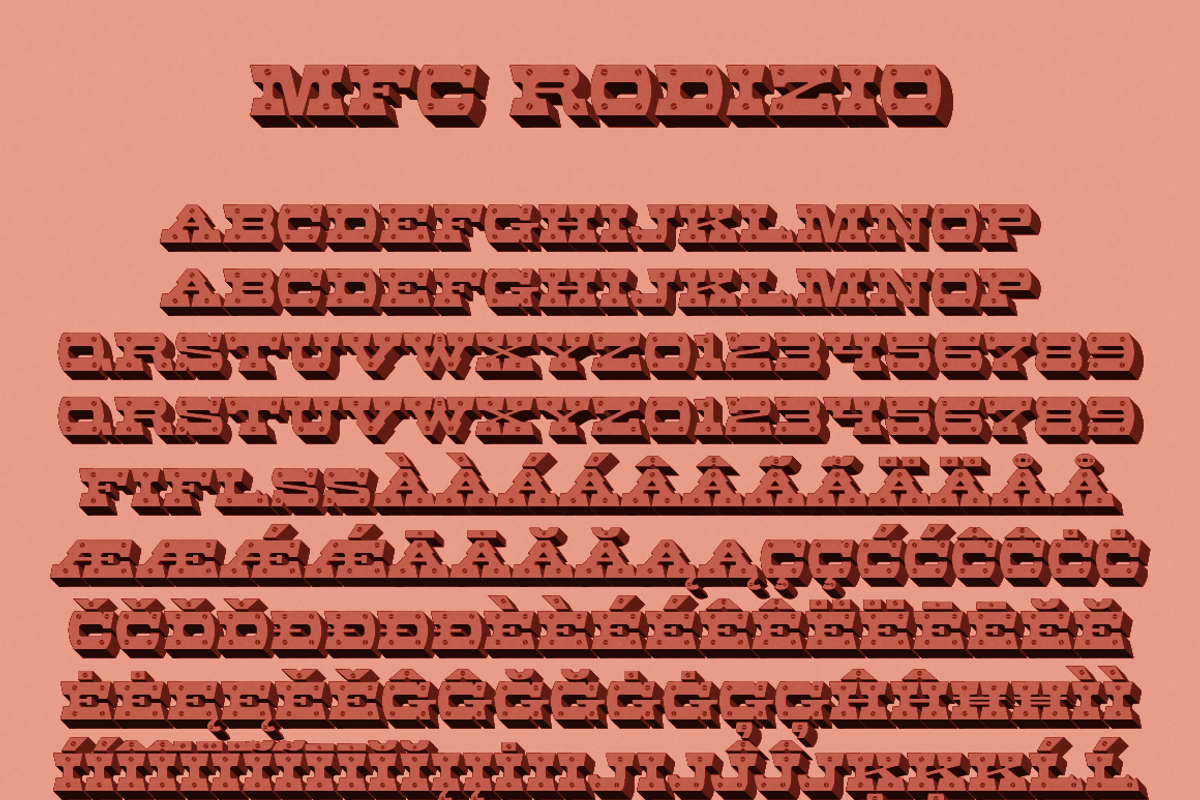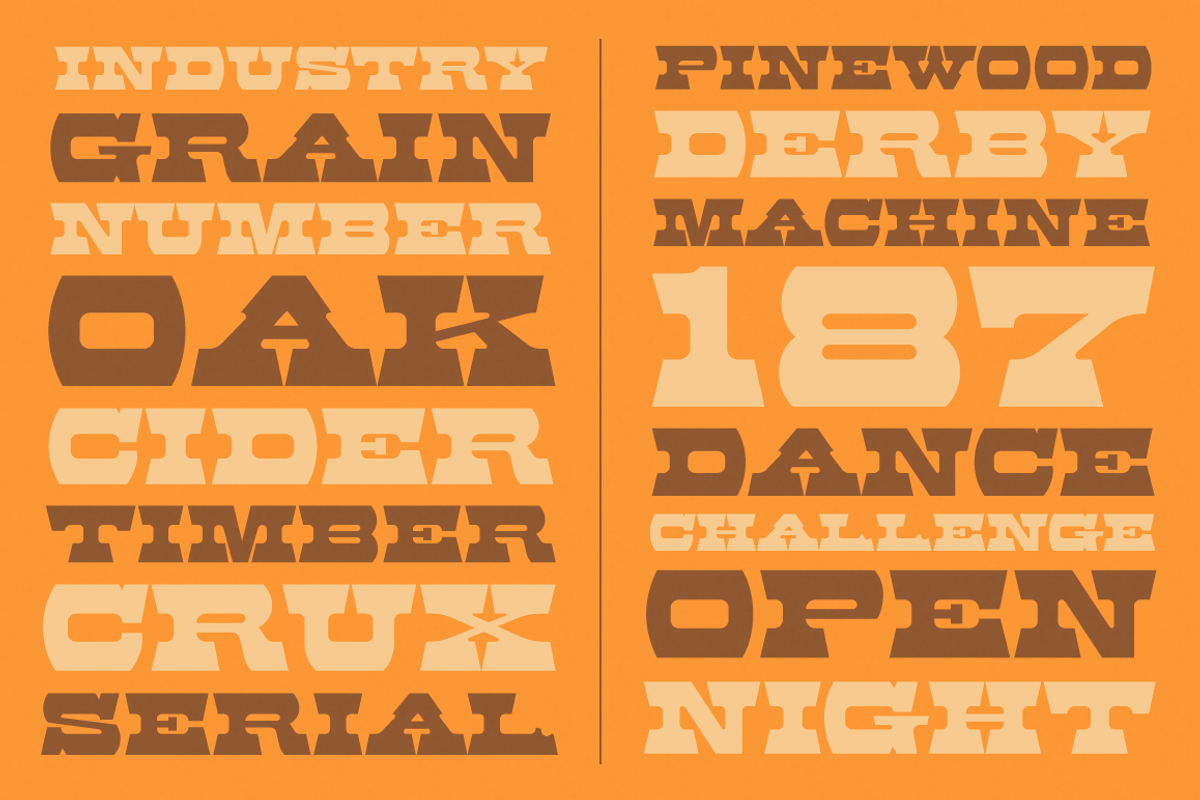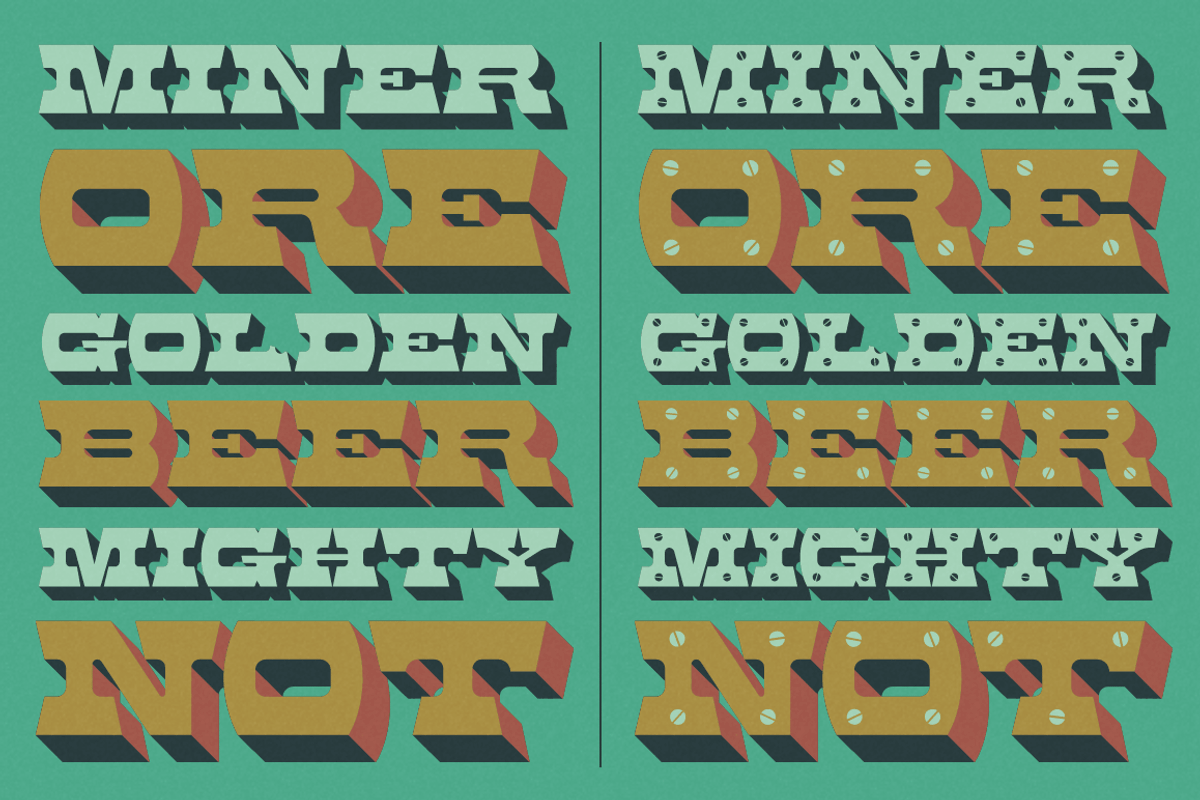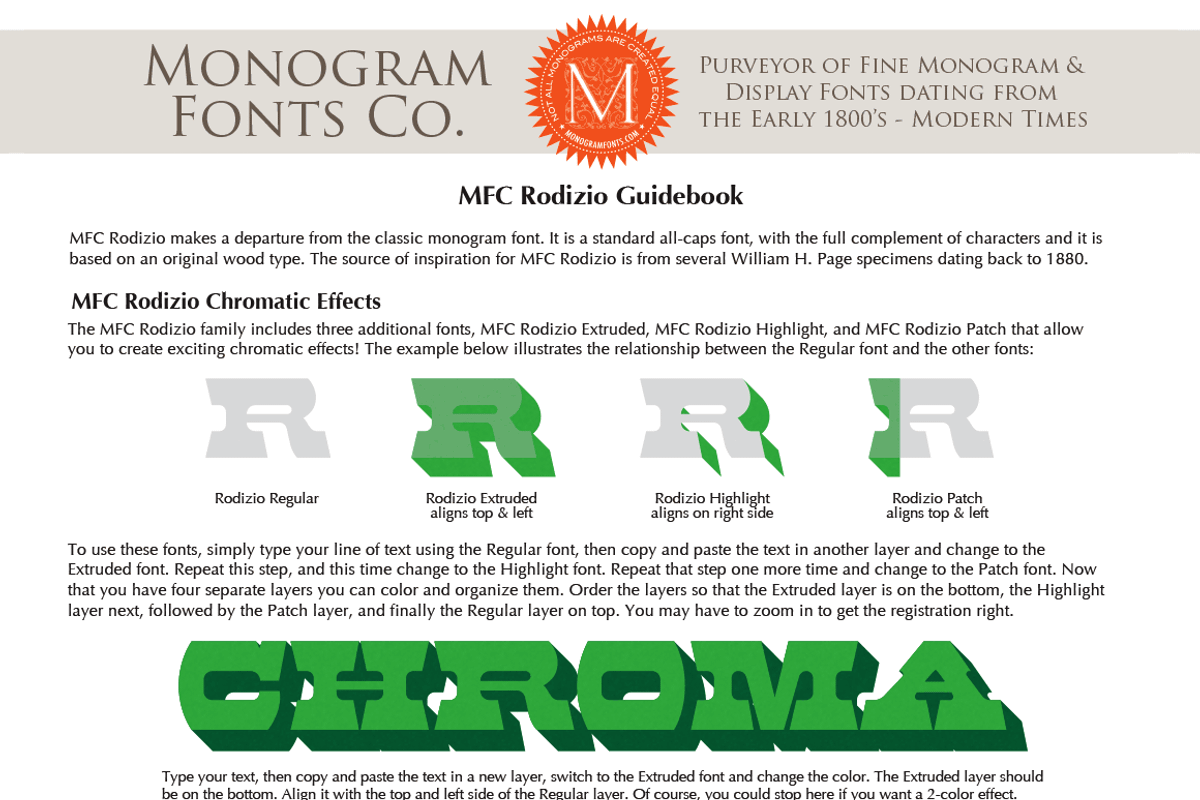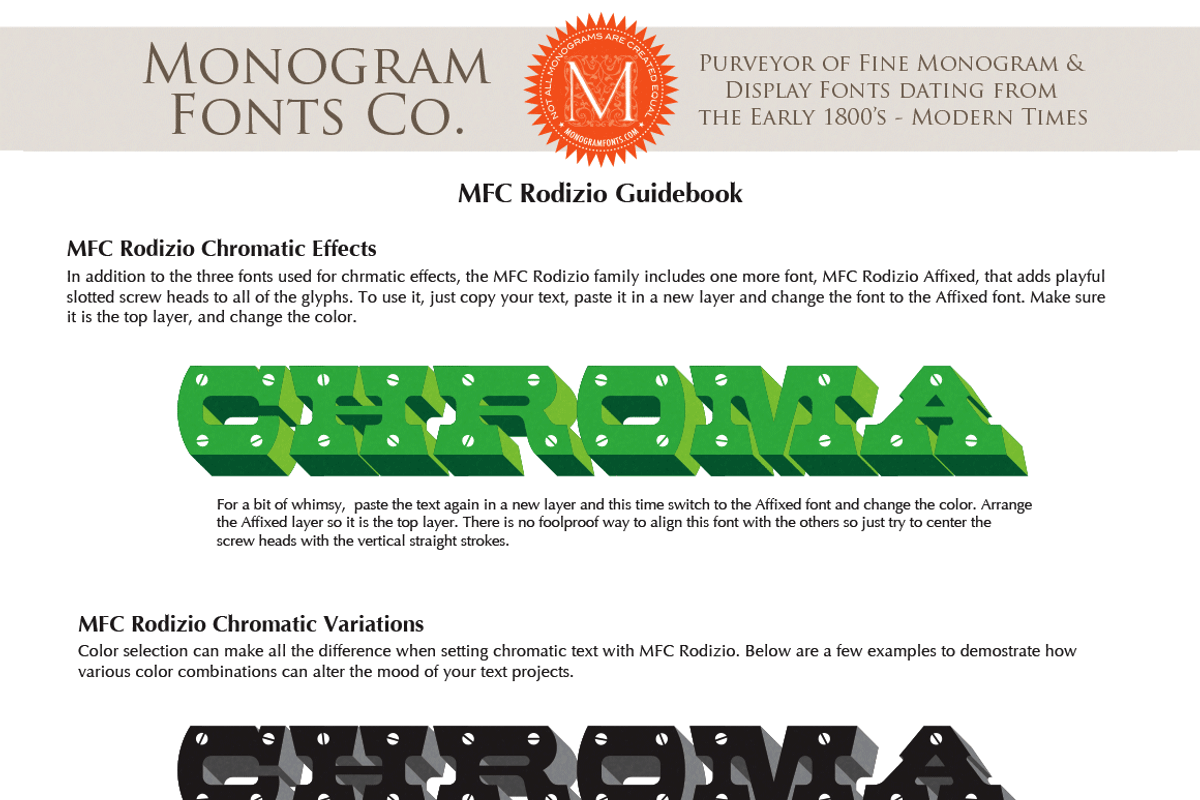
MFC Rodizio
MFC Rodizio by Monogram Fonts Co. is a font selected for branding, posters, packaging, typography.
- It is a standard all-caps font, with the full complement of characters and it is based on an original wood type.
- MFC Rodizio Regular
- MFC Rodizio Screw
- MFC Rodizio Extruded
- MFC Rodizio Highlight
- MFC Rodizio Patch
Why MFC Rodizio is worth a look
MFC Rodizio by Monogram Fonts Co. fits naturally into Branding, posters, packaging, typography.